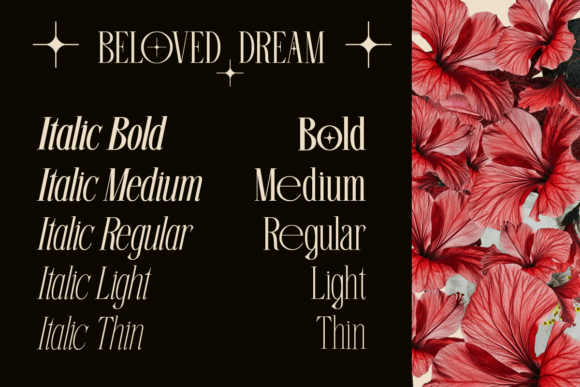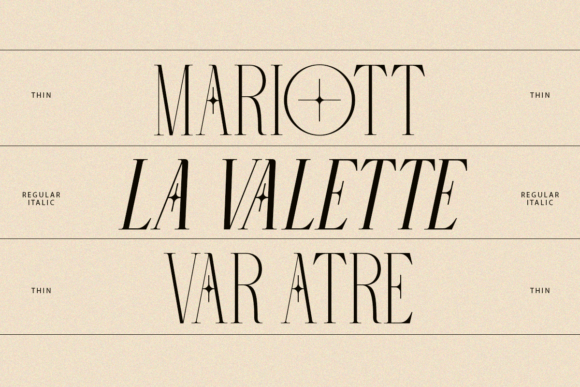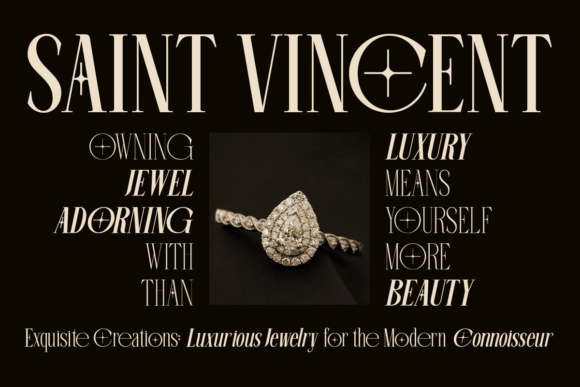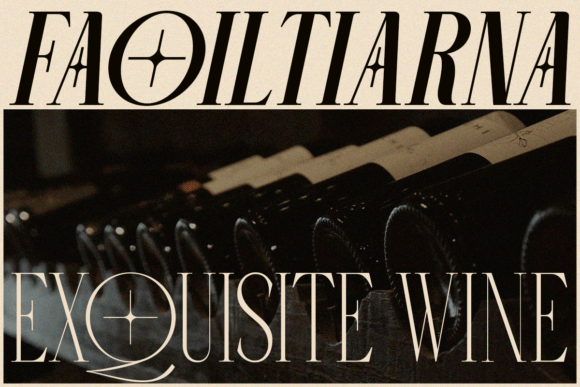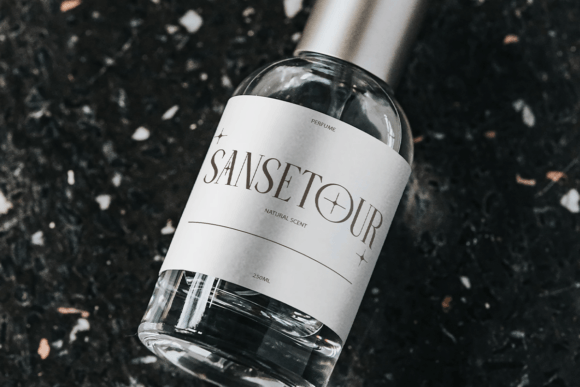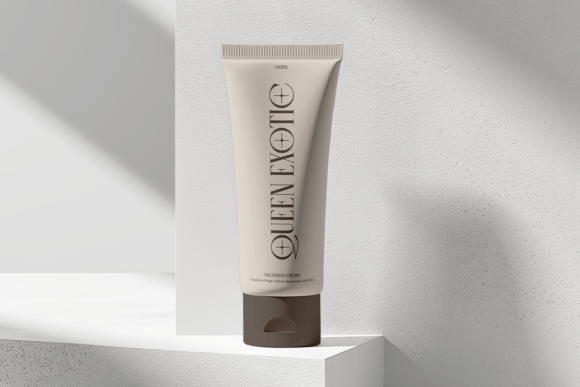
Introducing Beloved Dream: The Ultimate Font Family for Creative Projects
Are you tired of using the same old fonts for your creative projects? Look no further! Beloved Dream is a stunning font family that consists of 10 fonts, including 5 different weights, each with its own italic variation. This versatile font family is perfect for a wide range of projects, from fashion and magazines to logos, branding, photography, and more.
A Family of Fonts Like No Other
Beloved Dream is a carefully crafted font family that offers a unique and elegant look. With 5 different weights, you can use it for a variety of projects, from headlines to body text. The font family includes:
- 5 different weights: Light, Regular, Medium, Bold, and Extra Bold
- 5 italic variations to add a touch of elegance to your text
This extensive range of options makes Beloved Dream perfect for designers and crafters who want to add a professional touch to their work.
Beloved Dream is a versatile font family that can be used for a wide range of projects, including:
- Fashion: Create stunning fashion magazines, lookbooks, and advertisements with Beloved Dream
- Magazines: Use Beloved Dream for your magazine headers, articles, and quotes
- Logo and Branding: Create a professional and elegant logo for your brand with Beloved Dream
- Photography: Add a touch of sophistication to your photography portfolios and prints
- Invitations and Wedding Invitations: Create beautiful and elegant invitations with Beloved Dream
- Blog Headers and Posters: Use Beloved Dream to create eye-catching blog headers and posters
- Advertisements and Postcards: Create stunning advertisements and postcards with Beloved Dream
- Books and Websites: Use Beloved Dream for your book titles, headings, and website headers
Why Choose Beloved Dream?
So, why should you choose Beloved Dream for your next project? Here are just a few reasons:
- Unique and Elegant Design: Beloved Dream has a unique and elegant design that will make your project stand out
- Versatile: With 10 fonts to choose from, you can use Beloved Dream for a wide range of projects
- Professional Look: Beloved Dream is perfect for designers and crafters who want to add a professional touch to their work
- Easy to Read: Beloved Dream is easy to read, making it perfect for body text and headlines
Tips for Using Beloved Dream
Here are a few tips for using Beloved Dream:
- Mix and Match: Mix and match different weights and italic variations to create a unique look
- Use for Headlines and Body Text: Use Beloved Dream for both headlines and body text to create a cohesive look
- Experiment with Colors: Experiment with different colors to find the perfect combination for your project
In conclusion, Beloved Dream is a stunning font family that is perfect for designers and crafters who want to add a professional touch to their work. With its unique and elegant design, versatility, and ease of use, Beloved Dream is a must-have font family for any creative project. So, why wait? Download Beloved Dream today and take your projects to the next level!